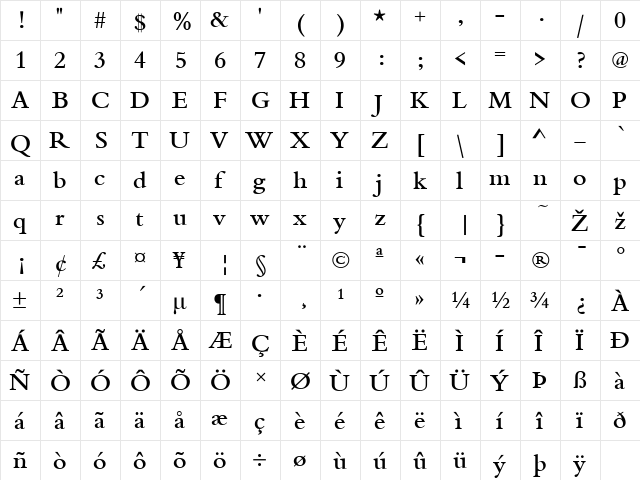
BemtuTMed Regular
Design Context for BemtuTMed Typeface
BemtuTMed is a composed and adaptable typeface that performs quietly and consistently across a wide range of design contexts.
Pro Tip: Use BemtuTMed in both headline and body roles to test its range before committing to a single application.